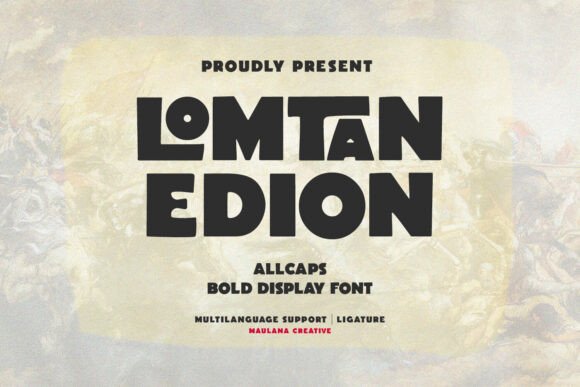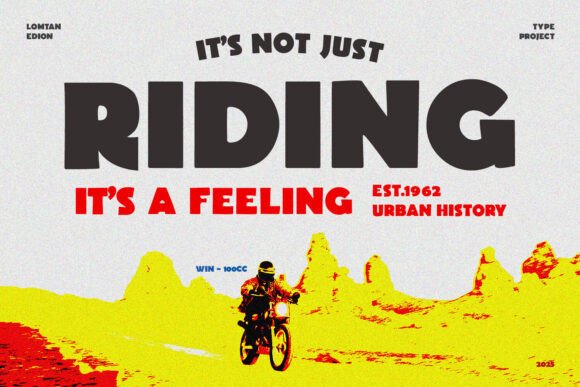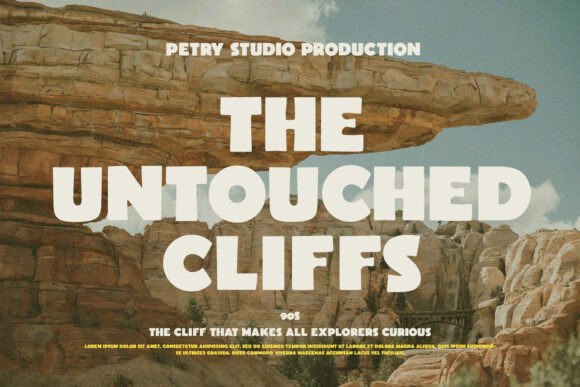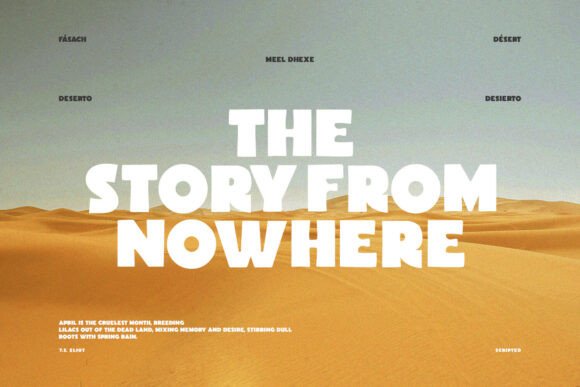
Lomtan Edion Font: Bold Vintage Typography for Eye-Catching Headlines!
About the Lomtan Edion Font
Elevate your designs with Lomtan Edion Font, a font that combines sophistication with readability. Make a confident statement with Lomtan Edion, an all-caps, bold display font with an artistic edge. Its thick, handcrafted letterforms deliver strong impact and quirky charm, making it perfect for posters, headlines, vintage branding, and creative projects that demand attention. With multilingual support and custom ligatures, this font is both expressive and versatile.
Lomtan Edion thrives in large-scale applications such as headlines, posters, and logos where its bold character can command attention. It’s ideal for branding projects aiming for a vintage or retro aesthetic, or those needing a strong, confident voice. However, its weight and all-caps nature make it unsuitable for body text or UI elements requiring high readability.
Its quirky charm pairs well with clean sans-serif fonts like Montserrat or Open Sans for a balanced contrast, or with a more delicate script font like Great Vibes for a touch of elegance. Alternatively, a geometric sans-serif like Futura would create a modern juxtaposition to Lomtan Edion’s handcrafted feel.
The font projects a bold, playful, and slightly rebellious personality, making it perfect for brands that wish to convey a sense of creative energy and individuality. Avoid pairing it with overly ornate or fussy fonts; simpler styles will allow Lomtan Edion to maintain its impact.
Lomtan Edion Font Example